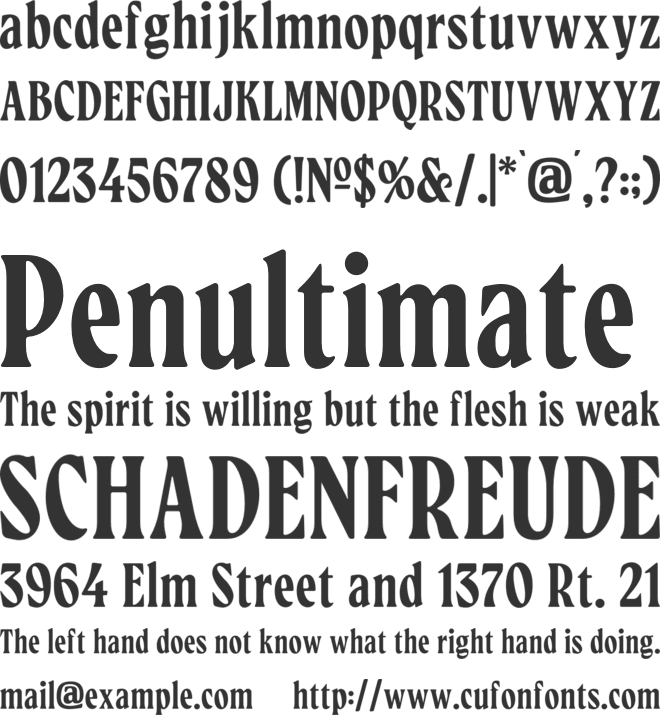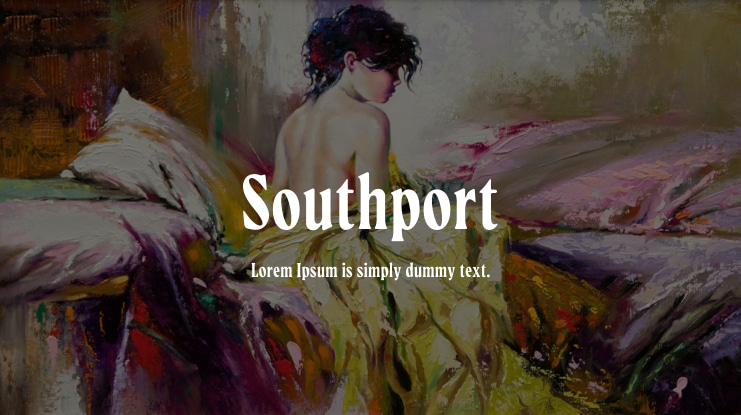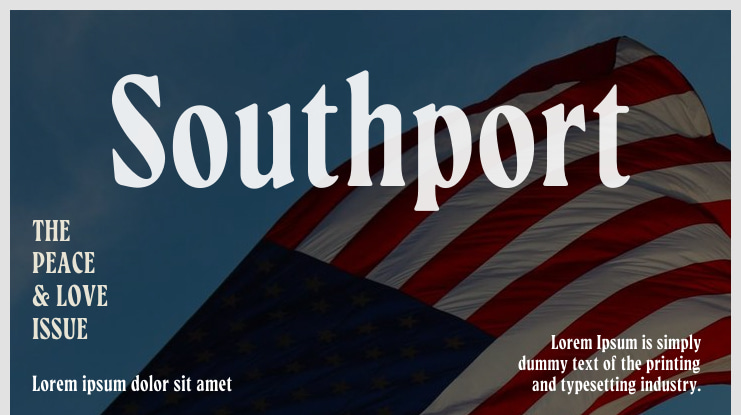
Southport Font
Southport is an elegant, hand-crafted serif font with a warm and familiar feel. This font is a great fit for high-end branding, logo designs, magazines, product packaging, and invitations. Buy the full version here: https://creativemarket.com/sgmnt/11005900-Southport